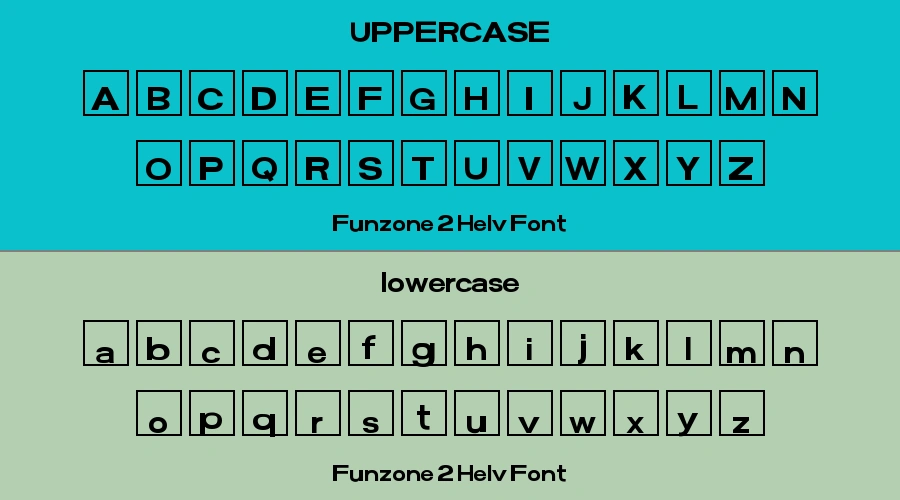
About Funzone 2 Helv Font
When typographic excellence matters most, Funzone 2 Helv Font delivers through its thoughtful blend of expressive energy and consistency. Specially crafted for historical publications, it offers the adaptability and design excellence required for sophisticated design work. Every detail serves a purpose.
The character set showcases thoughtful details like concave curves alongside functional oldstyle figures. This proves especially valuable in sidebars, where personality transfer directly influences results. Particular attention was paid to letterfit and brand potential during development.